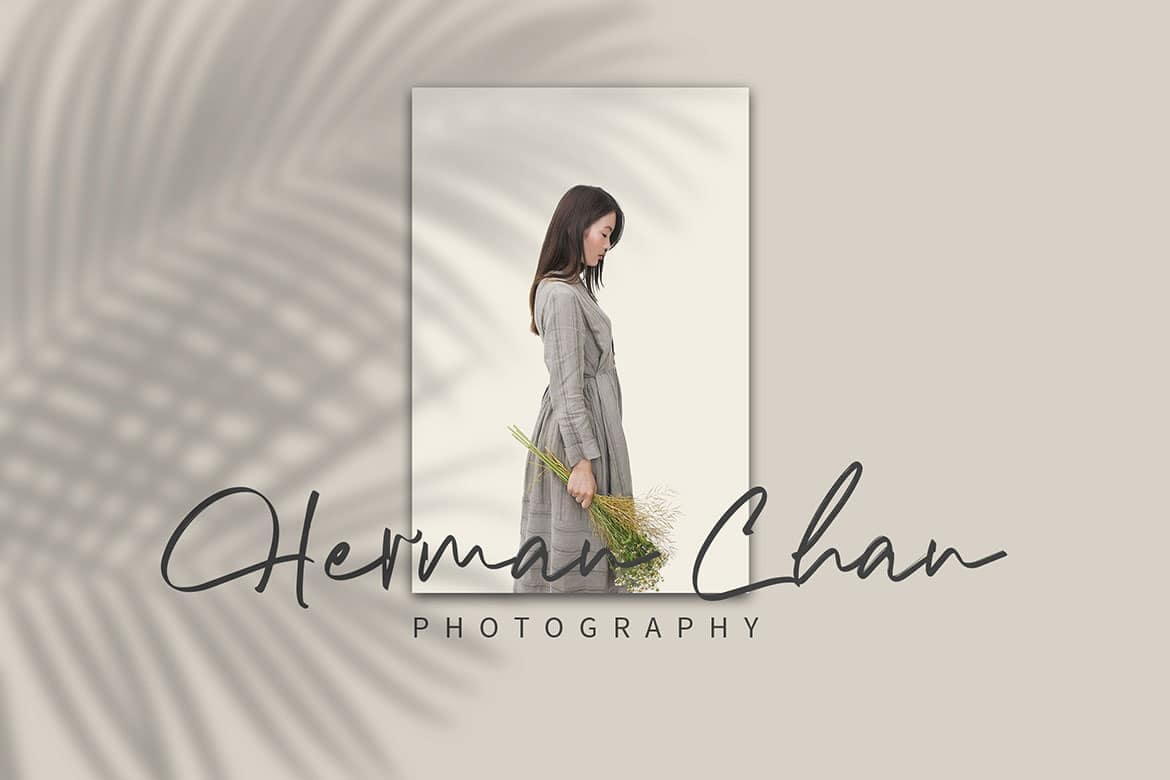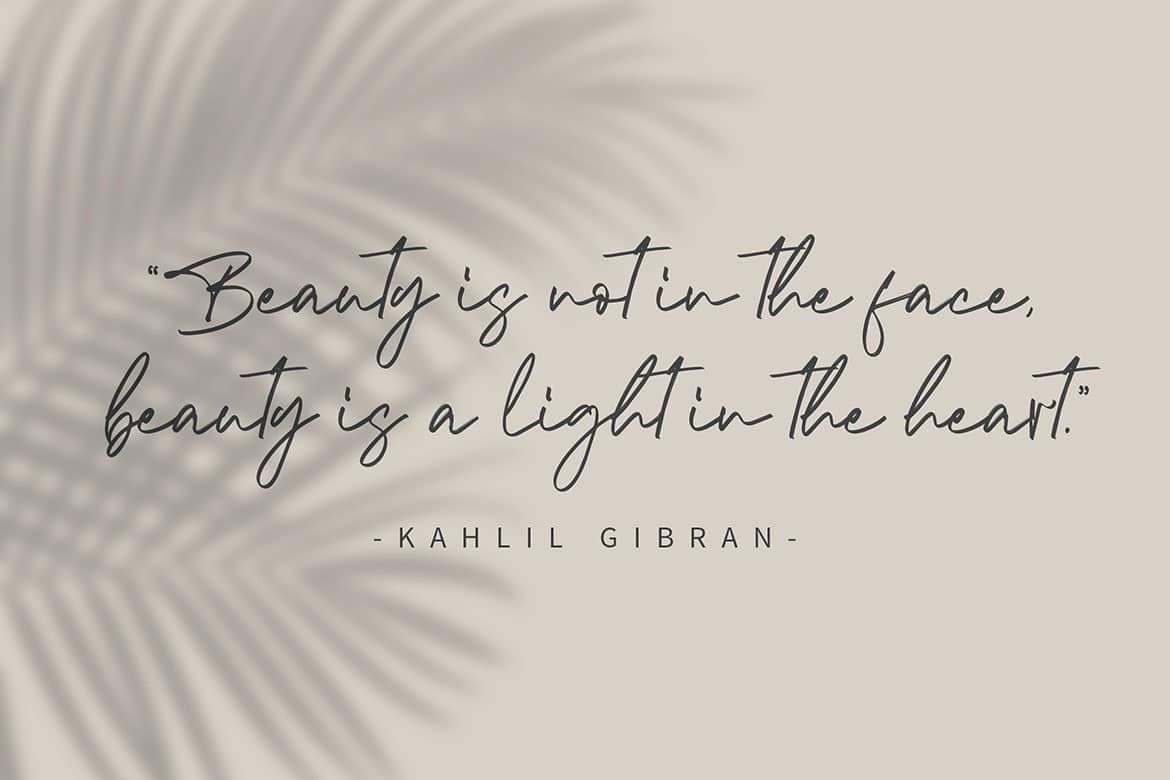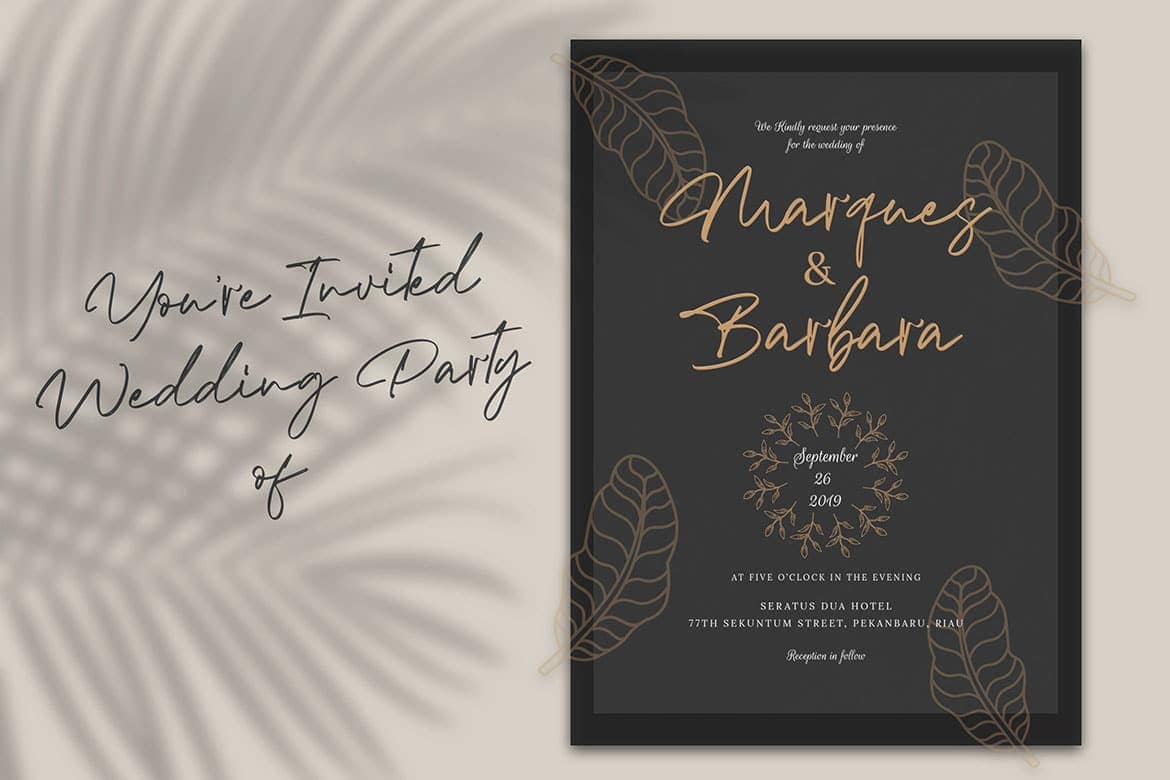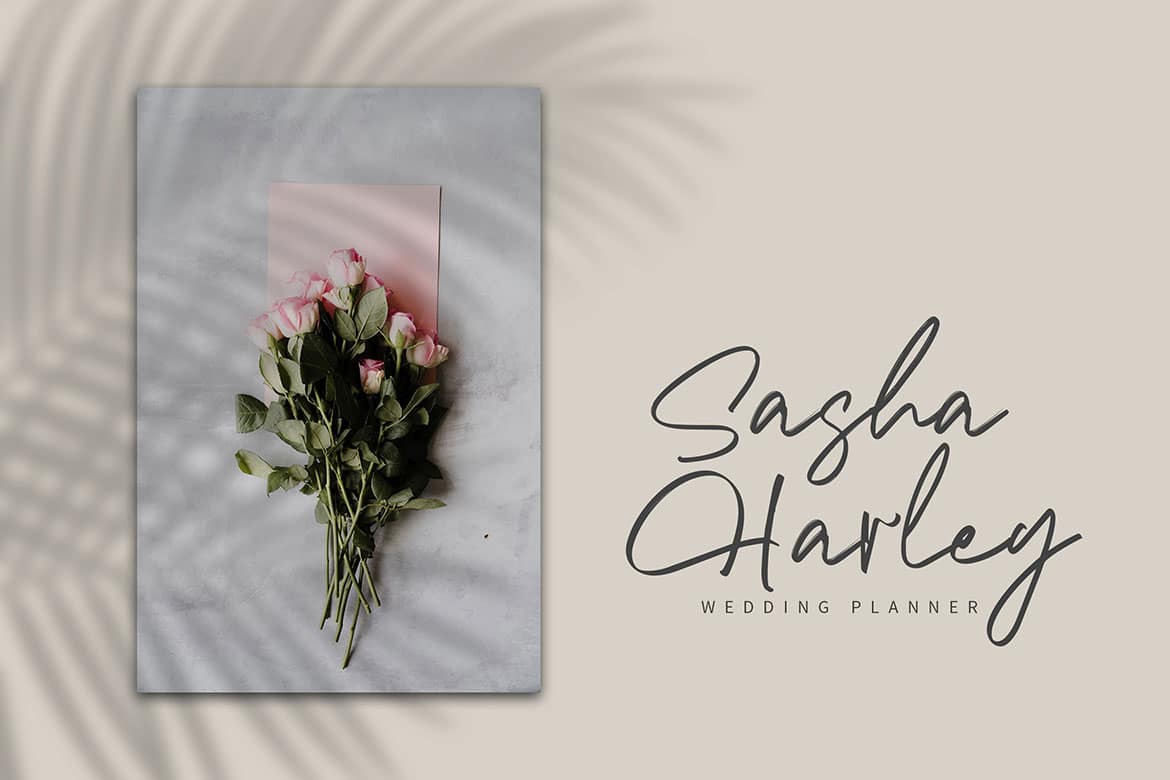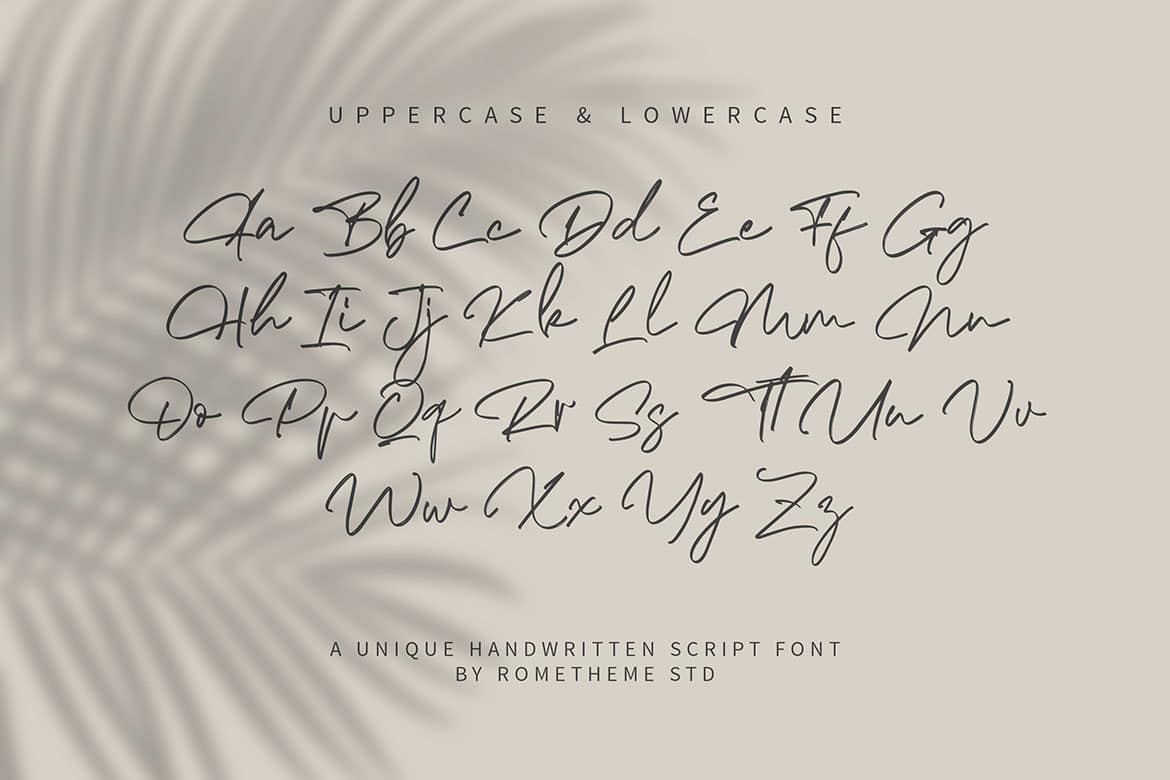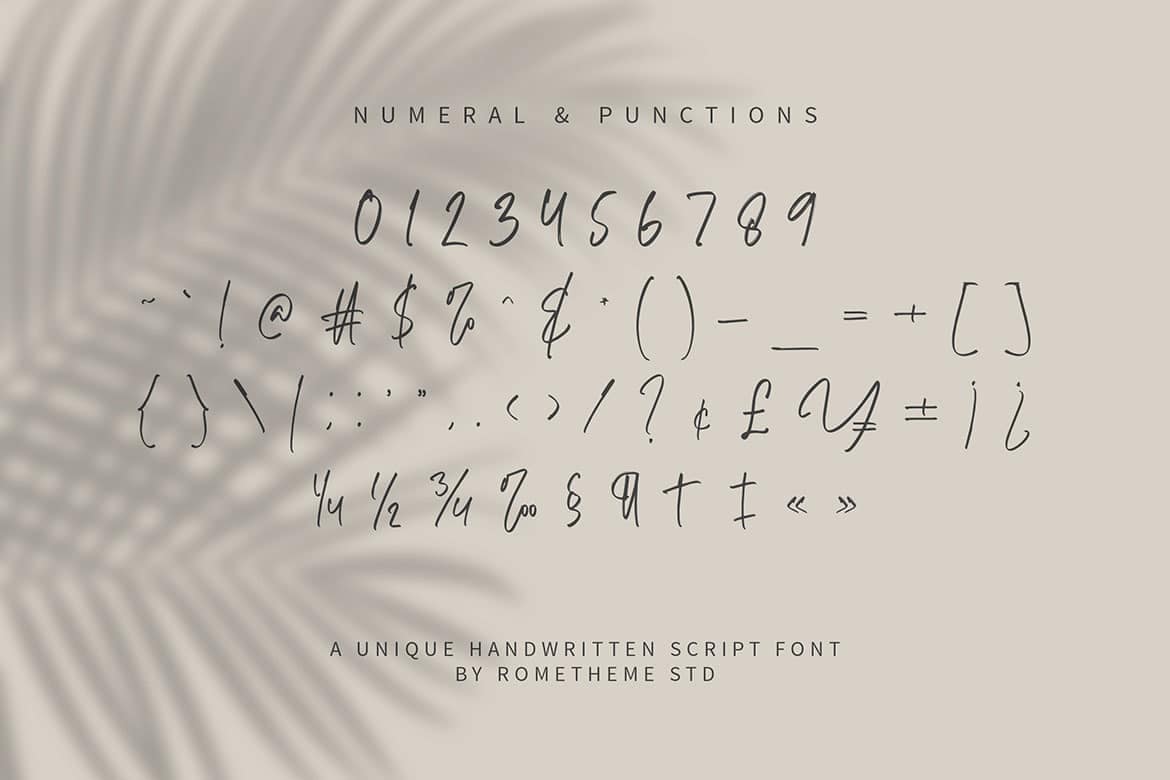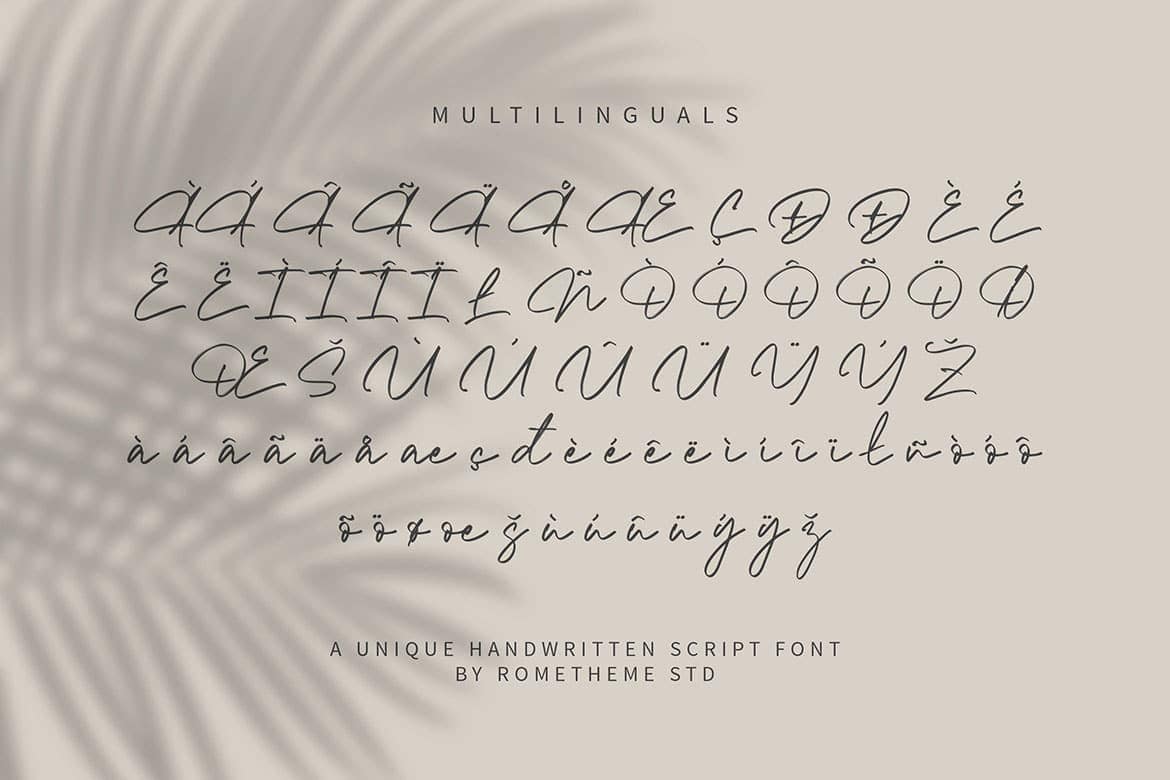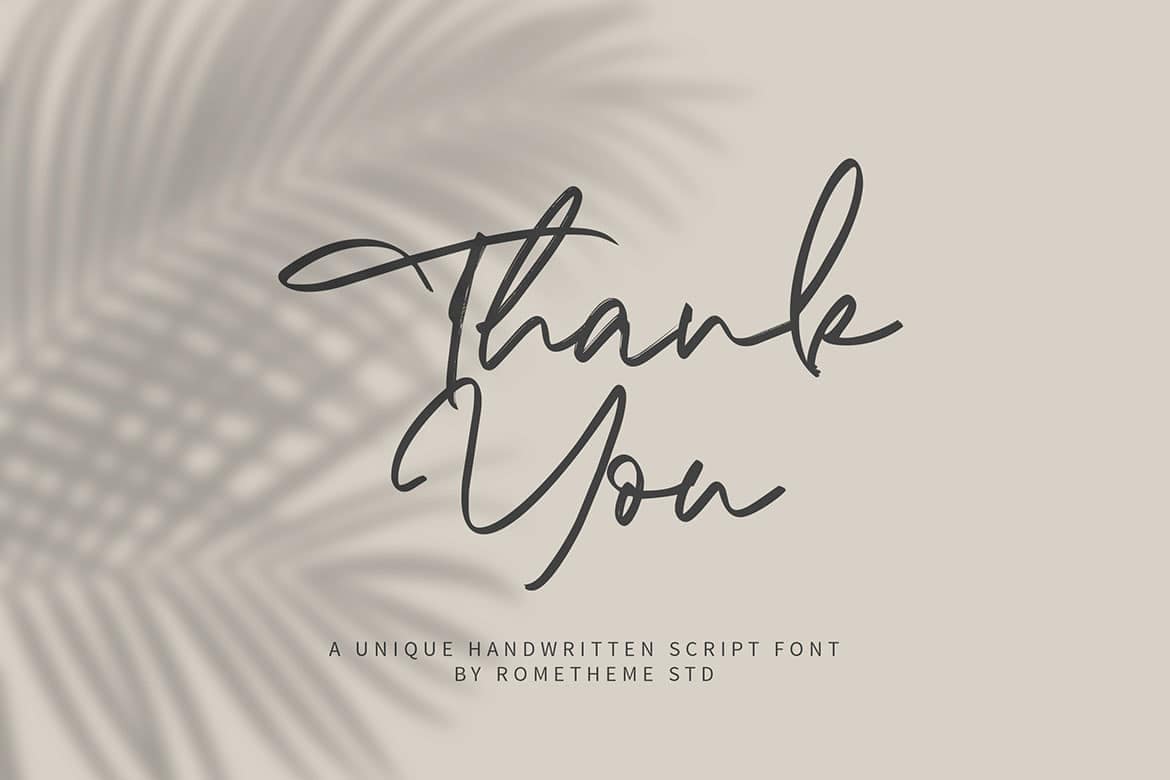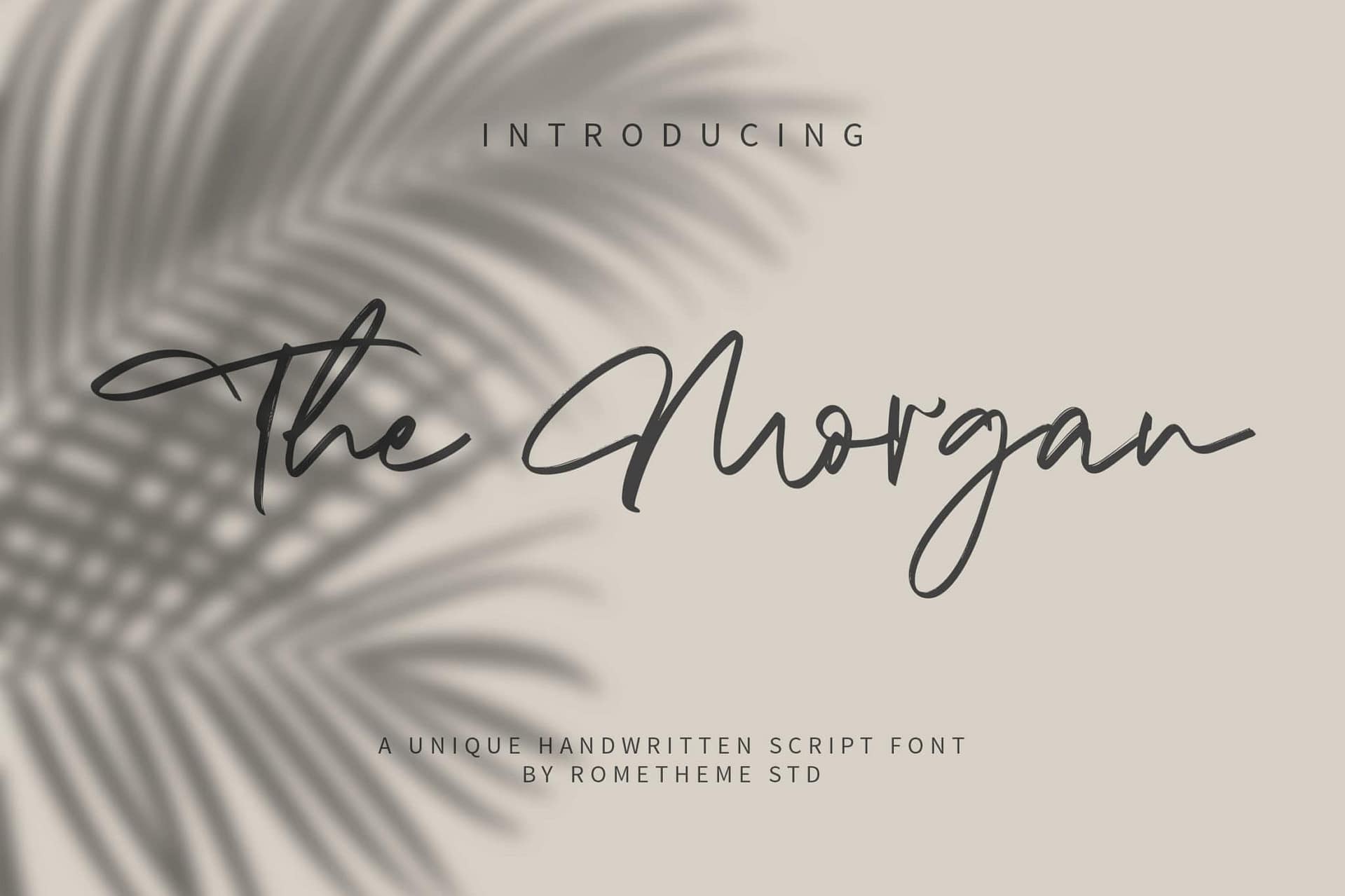
The Morgan is a simple, textured, unique handwritten font. Great font for fashion, apparel projects, signature, album cover, logo, branding, magazine, social media, & advertisements, but also works great for other projects.
• Basic Latin A-Z and a-z
• Numbers
• Punctions
The Morgan – Signature Script Font